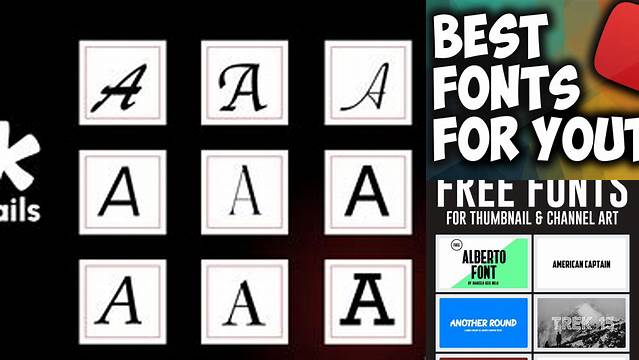
Best Fonts For YouTube: Your Ultimate Guide
Hey there, video creators! Are you looking to take your YouTube channel to the next level? Well, besides creating killer content, you need a strong visual identity. And guess what? Choosing the right font is a massive piece of that puzzle! This article will dive deep into the best fonts for YouTube, helping you select the perfect typography to boost your brand, make your videos pop, and keep your audience hooked. Get ready to transform your channel's aesthetic! We'll explore various font styles, from clean sans-serifs to bold, attention-grabbing options, ensuring your channel not only looks amazing but also effectively communicates your message. Choosing the right font for your YouTube videos is more than just a design choice; it's a strategic move. It's about conveying your brand's personality, making your content more readable, and ultimately, keeping viewers engaged. Whether you're a vlogger, a gamer, a tutorial guru, or a business channel, the font you use plays a crucial role in how your audience perceives you. Let's break down how to choose the best fonts and make your videos visually irresistible. Selecting the ideal font for your YouTube channel involves considering several key factors. Firstly, think about your brand's personality. Are you aiming for a professional, trustworthy vibe? Or are you going for something fun, edgy, and creative? Your font choice should align with this. Secondly, consider readability. Your text needs to be easy to read, especially on different screen sizes. Simple, clean fonts often work best. Thirdly, consider the overall aesthetic of your videos. Does the font complement your video content and style? Finally, always think about consistency. Stick to a few fonts throughout your channel to build a cohesive brand identity. By keeping these factors in mind, you'll be well on your way to choosing fonts that not only look great but also effectively communicate your brand's message and personality.
Why Font Choice Matters for YouTube
Alright, let's get real for a sec: why should you even care about fonts? Well, guys, it's because fonts are powerful. They're one of the first things viewers notice when they click on your video. A well-chosen font can immediately grab attention and communicate your brand's personality. Think about it – it’s all part of the user experience, and the fonts you choose have a profound impact on how your audience perceives your content. A professional font like Lato or Open Sans can signal trustworthiness and expertise, perfect for educational or business channels. On the other hand, playful fonts like Bangers or Luckiest Guy add a fun and engaging touch, great for gaming, comedy, or lifestyle channels. Fonts influence the readability of your text, which directly impacts viewer engagement. If your text is hard to read, viewers will likely click away. But if your text is clear, easy to read, and visually appealing, people are more likely to stick around and consume your content. In a world overflowing with content, every detail matters. Your font choice helps you stand out from the crowd. It's about creating a memorable brand identity that viewers will recognize and remember. Consistency in your font choices across your video thumbnails, titles, and end screens builds a cohesive brand identity. Every time a viewer sees your video, they’ll instantly recognize your channel. Moreover, fonts also convey the tone of your video. A sleek, modern font suggests professionalism, whereas a handwritten font can give off a personal and authentic vibe. Your font choice influences how your viewers connect with your content and, ultimately, determines whether they’ll come back for more.
Top Font Choices for YouTube Videos
Now that we know why fonts are crucial, let's get to the good stuff: the actual fonts! We've compiled a list of the best fonts for YouTube that will work wonders for your channel. Here’s a breakdown of some of the top choices and why they’re awesome. First up, Open Sans. This is a super versatile, clean sans-serif font that’s incredibly readable on all screen sizes. It’s great for titles, subtitles, and body text, making it a perfect all-rounder for any YouTube channel. You can't go wrong with Open Sans because of its legibility and modern look, which are critical for attracting a wider audience. Next, we have Lato. Similar to Open Sans, Lato is a sans-serif font with a friendly and approachable feel. It’s great for conveying a sense of warmth and professionalism, making it ideal for business or educational channels. It strikes the perfect balance between being simple and elegant, ensuring your content always looks polished. Moving on, let's talk about Roboto. This is another excellent option for its clean lines and high readability. Roboto is a favorite among designers because it’s both modern and easy to read, making it great for all types of videos. And here's a wildcard for you: Montserrat. This is a geometric sans-serif font with a modern and slightly bolder look, perfect for grabbing attention. It works well for eye-catching titles and thumbnails. Remember, the best font depends on your brand and video style. If you are struggling with making the right choice, you can always go with Arial, Helvetica, and Times New Roman. They are the most simple ones and easy to access. By the way, Google Fonts is a fantastic resource, offering a huge library of free fonts that you can easily download and use for your YouTube videos. Google Fonts is your best friend when you are starting out, so be sure to check them out for free fonts.
Tips for Using Fonts Effectively on YouTube
Choosing the right font is just the beginning, my friends! Now, let's make sure you use those fonts like a pro. Here are some essential tips for using fonts effectively in your YouTube videos. First, prioritize readability. Always make sure your text is easy to read, especially on mobile devices, where most people watch videos. Use a font size that's large enough and a color that contrasts well with your background. Avoid using fonts that are overly stylized or difficult to decipher. Readability is key to making sure your message gets across. Second, maintain consistency. Choose a few fonts and stick with them across all your videos. This builds brand recognition and creates a professional look for your channel. Consistency also helps viewers quickly identify your videos in their feeds. Think of it like a visual signature for your brand. Third, consider font pairing. If you want to use multiple fonts, choose them thoughtfully. Pair a strong headline font with a more readable font for body text. Just remember that you don't want to overdo it. Two to three fonts are usually enough. Fourth, manage font size and weight. Don’t make everything the same size. Use different sizes and weights to highlight important information. Use bold fonts for titles and subtitles to draw the viewer’s eye. This also helps break up text, making your videos more engaging. Fifth, be mindful of color. Choose colors that complement your video content and align with your brand. Make sure your font colors contrast well with the background so your text is easy to read. Don’t underestimate the power of color to make your videos visually appealing. Finally, keep it simple. Don’t overcrowd your videos with text. Use text sparingly and strategically to highlight key information. Too much text can distract viewers from your content. Less is often more. Keep your fonts, colors, and overall design elements minimal to create a polished and professional look.
Avoiding Common Font Mistakes on YouTube
Alright, let's steer clear of some font faux pas that can ruin your video's look. Here's how to avoid common font mistakes on YouTube. First off, don’t use too many fonts. Sticking to a maximum of two or three fonts helps create a consistent and professional look. Using too many fonts makes your video look cluttered and unprofessional. Secondly, don't choose fonts that are hard to read. Avoid overly decorative or stylized fonts, especially for subtitles and body text. Your main goal is to communicate clearly and get your message across. Third, don’t use fonts that are too small. Always make sure your text is large enough to read easily on all devices, including mobile phones. Small text can be frustrating for viewers and hinder their viewing experience. Fourth, don’t ignore contrast. Ensure your font color contrasts well with your background. Dark text on a dark background, or light text on a light background, can be a disaster. Always ensure there's a good contrast to make the text pop. Fifth, don't forget about kerning and leading. Pay attention to the spacing between letters (kerning) and lines of text (leading). Poor spacing can make your text look cluttered and difficult to read. Finally, don’t be afraid to experiment, but always test. Try out different fonts, sizes, and colors to see what works best. But always test your videos on various devices to ensure they look good. When you are starting your YouTube journey, always have a backup plan, and don’t be afraid to experiment with new designs. By knowing these simple things, you can avoid mistakes and create visually appealing videos.
Tools and Resources for Font Selection
Ready to start experimenting and find the perfect fonts for your channel? Let's explore some helpful tools and resources for font selection. First, Google Fonts is your ultimate free font library. It offers a massive selection of fonts, all free to download and use. The library also provides previews and pairing suggestions, making it easy to find the perfect match for your brand. It's super user-friendly and packed with options. Next, Adobe Fonts (formerly Typekit) is another great resource. If you’re an Adobe Creative Cloud subscriber, you have access to thousands of fonts. They offer a wide range of fonts, from classic to modern, with excellent quality and design. If you do not have an Adobe subscription, consider investing in one. Besides Adobe, you can also use the Font Squirrel to find free, high-quality fonts that are free for commercial use. It also provides helpful resources and tutorials for font pairing. You also can use Canva and PicMonkey. These are user-friendly design tools with a variety of fonts pre-installed, making it easy to add text to your videos or create custom thumbnails. They offer templates and design elements too, and you don’t need any design experience. Do not underestimate the power of these design tools, because they are perfect for beginners and advanced creators as well. In conclusion, choosing the right fonts is crucial for your YouTube channel’s success. By understanding the basics of font selection, following our tips, and using the right tools, you can create visually stunning videos that captivate your audience and enhance your brand. So, go ahead, experiment with different fonts, and watch your channel grow! Good luck and happy creating!